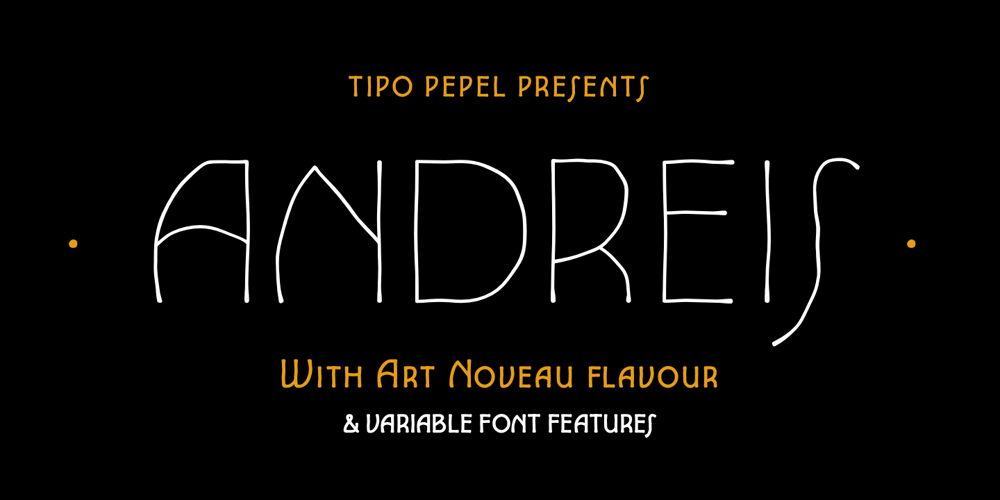
Andreis Font Family was designed by Josep Patau Bellart and published by Tipo Pèpel. Andreis contains 13 styles and family package options. Andreis is a typeface inspired by the art nouveau shapes that appear in the letters of a metal box, made at the beginning of the 20th century by the company G. De Adréis from Badalona in Spain. Its organic and feminine forms evoke the aesthetics of those years and add elegance to the projects where it is used.